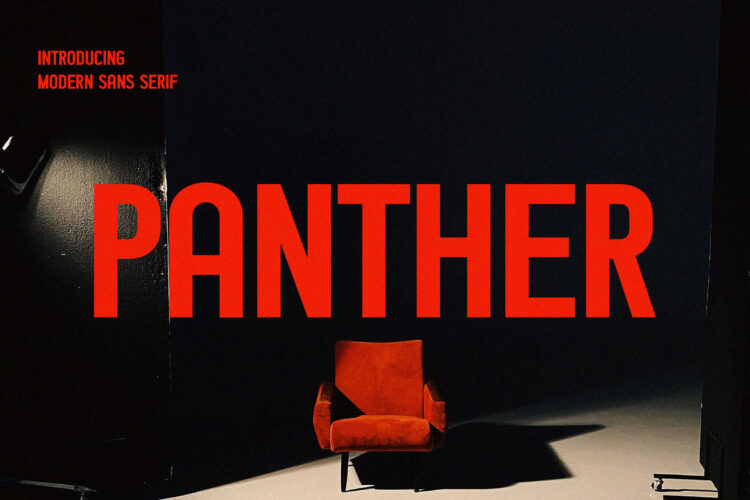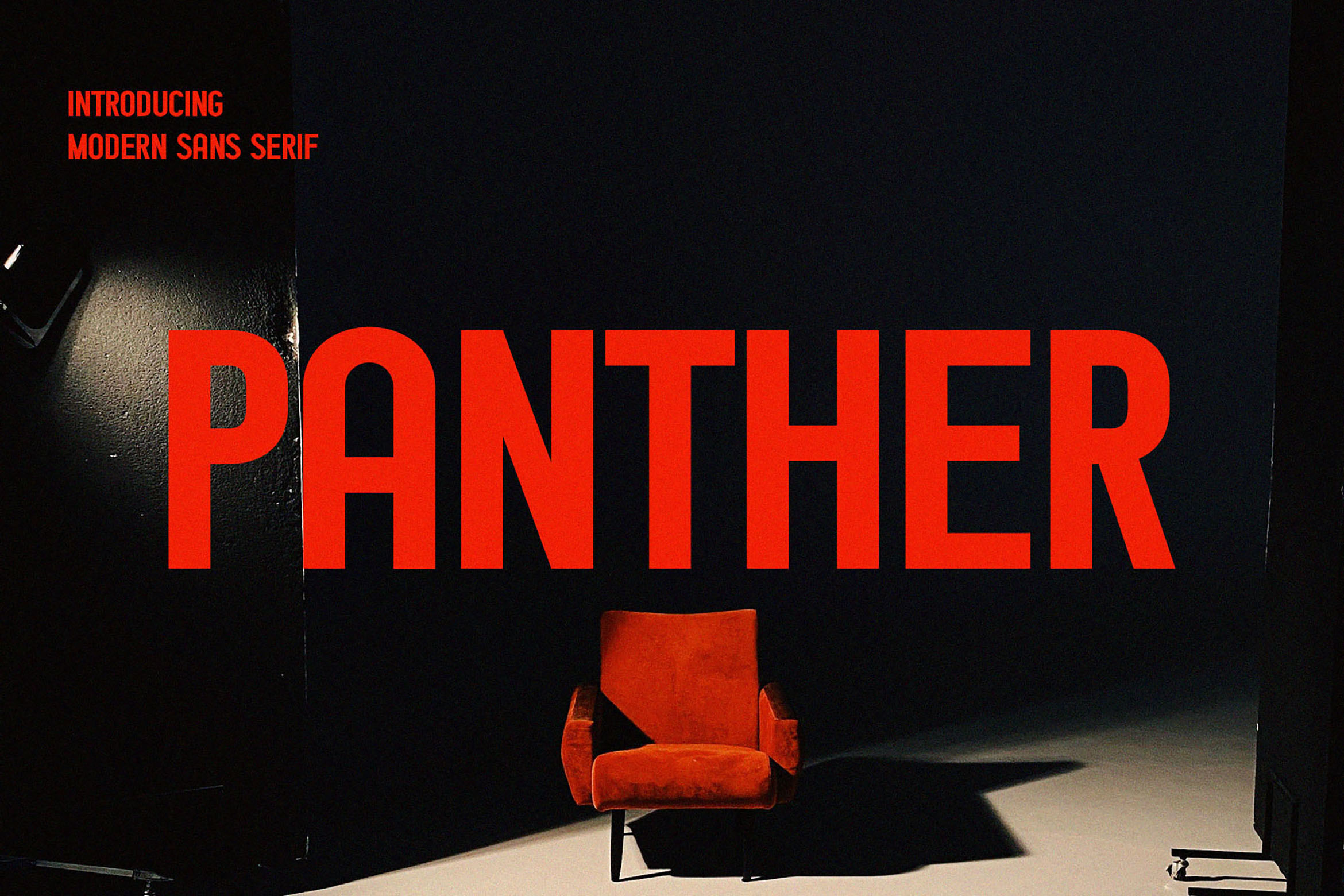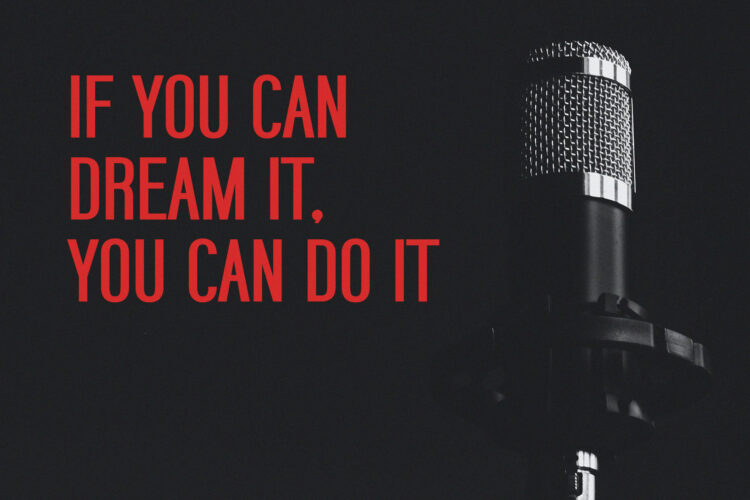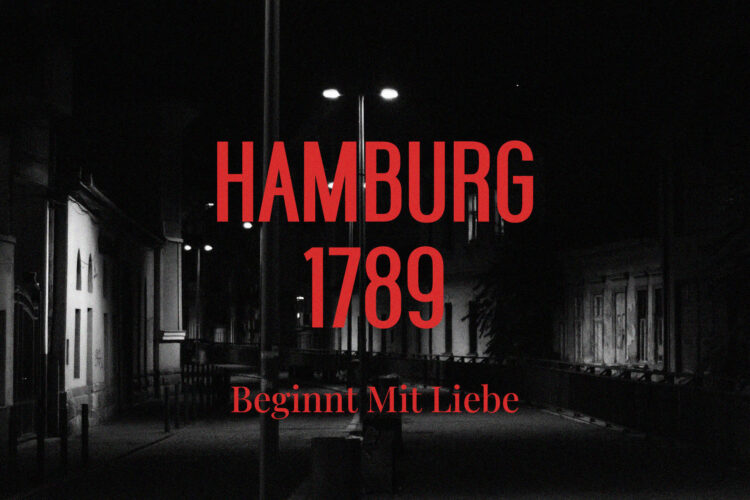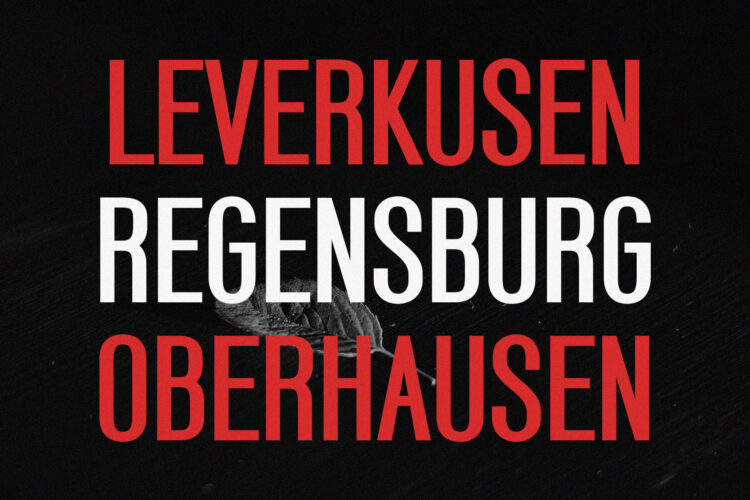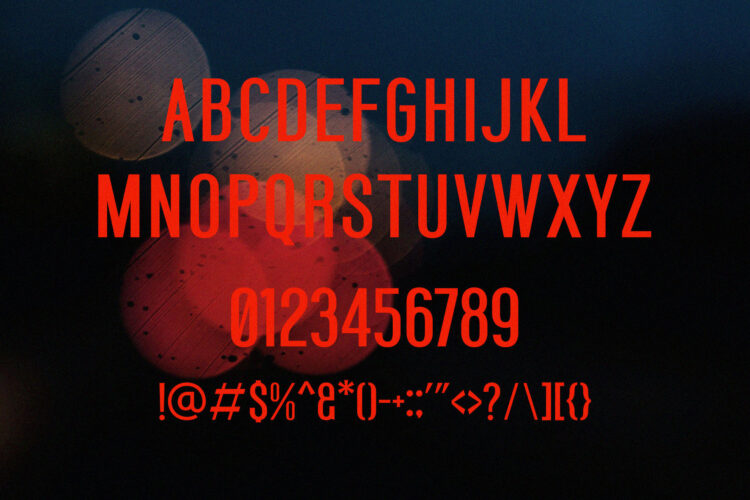
Condensed Modern Sans Serif Font
Panther
Introducing our new Panther, modern sans serif font with elegant style this is perfect for branding, logos, invitation, magazines, product packaging and more.